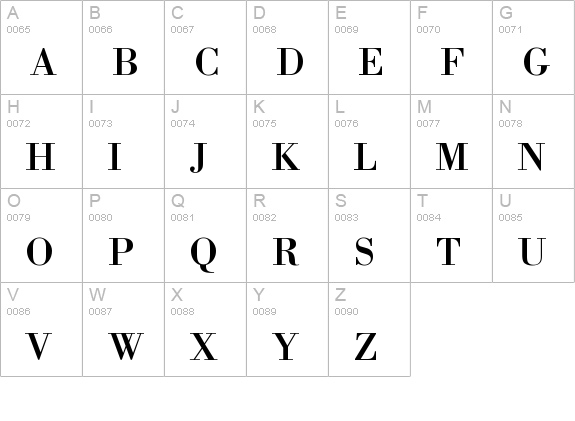
Bodoni SSi Font Details
Bodoni SSi font is a timeless classic that exudes elegance and sophistication. With its clean lines and graceful curves, this font is perfect for adding a touch of refinement to any design project. Whether you are creating a wedding invitation, a business card, or a logo, Bodoni SSi font will bring a sense of style and luxury to your work. What's even better is that Bodoni SSi font is available for free download at FontsMarket.com. You can easily access this beautiful font and use it in your projects without any cost. Don't miss out on the opportunity to enhance your designs with the exquisite beauty of Bodoni SSi font. Download it today and elevate your creations to new heights of elegance and sophistication.